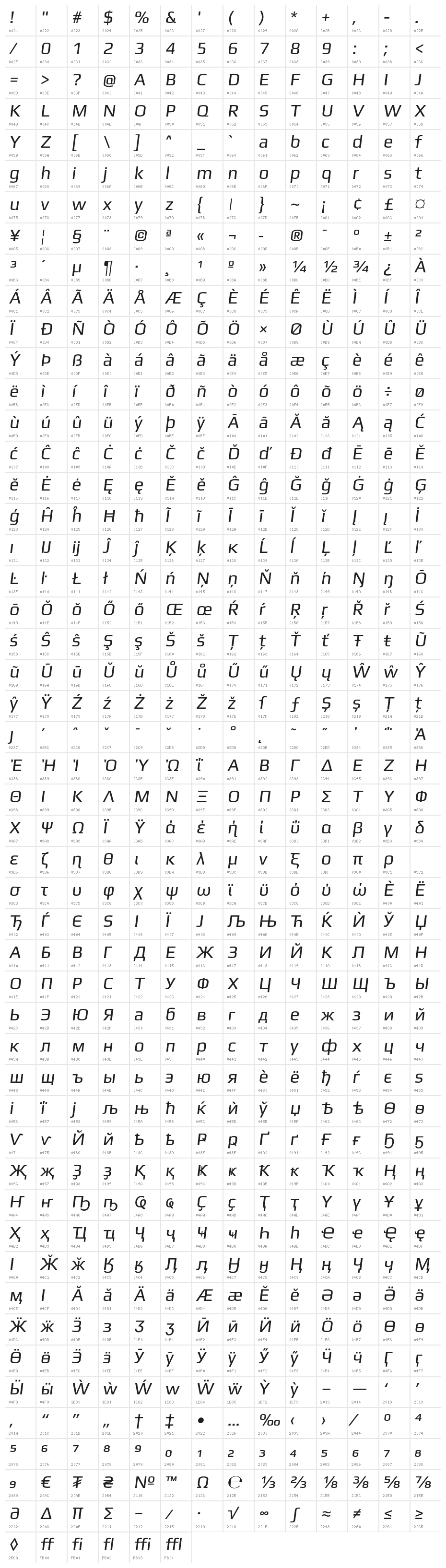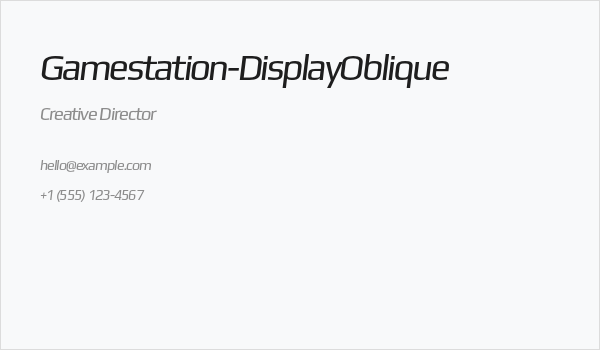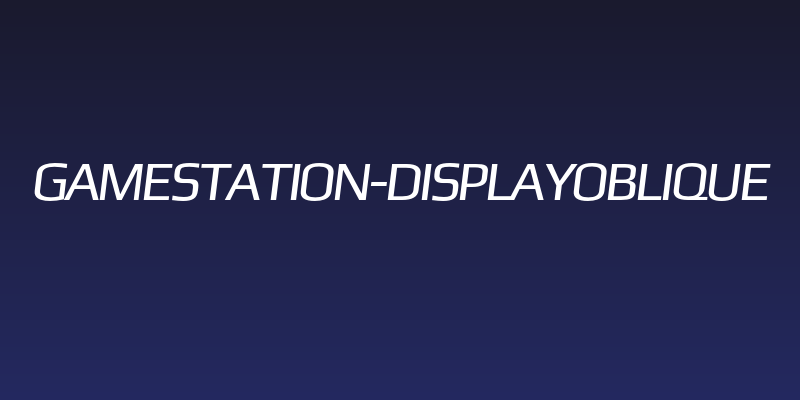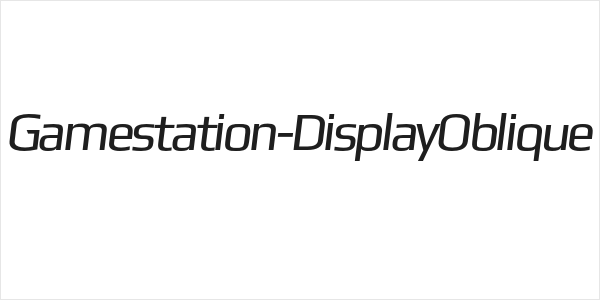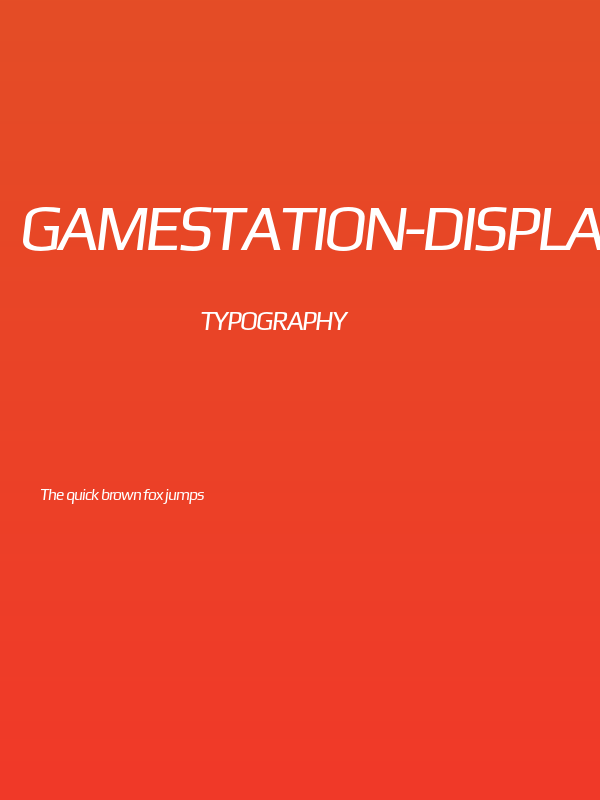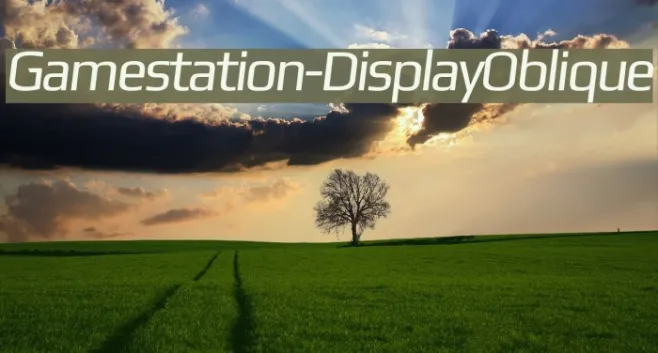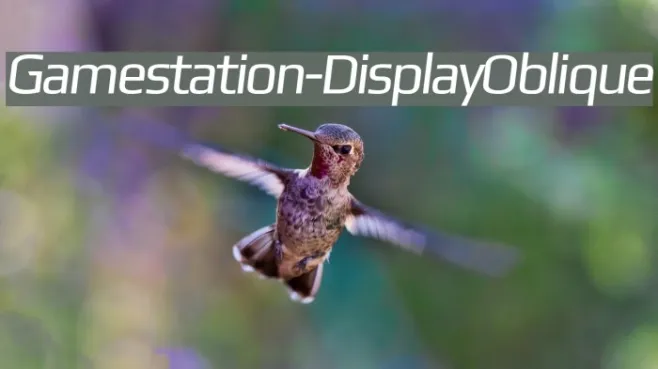
Gamestation-DisplayOblique Font
Gamestation-DisplayOblique Description
This font features a sleek and modern design with a distinct oblique style, giving it a dynamic and forward-leaning appearance. The characters are well-proportioned with a consistent stroke width, contributing to a clean and streamlined look. The uppercase and lowercase letters maintain a harmonious balance, while the numerals and special characters are crafted to complement the overall aesthetic. The font's design is versatile, making it suitable for various applications where a contemporary and energetic feel is desired.
| Proposed Projects | Ideal for tech branding, sports team logos, dynamic posters, and modern web design. |